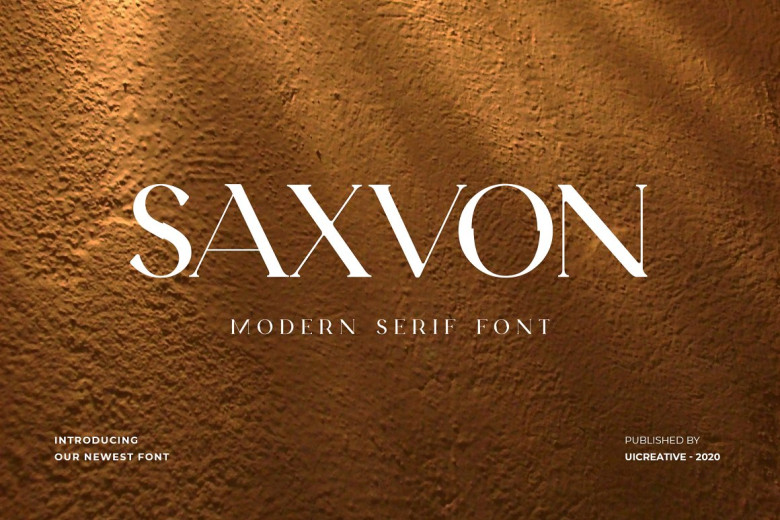
Saxvon Font
Saxvon is an elegant and thin lettered serif font. It can be used for various purposes such as logos, wedding invitations, headings, t-shirts, letterhead, signage, labels, news, posters, badges and so much more.
Saxvon Serif Font